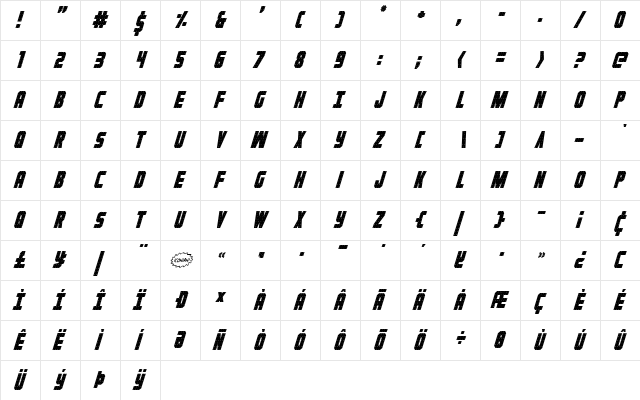
Design Context for Iron Forge Condensed Italic Typeface
Iron Forge Condensed Italic is a composed and adaptable typeface that performs quietly and consistently across a wide range of design contexts. The dynamic lean of this cut emphasises speed and emphasis in any layout. Its narrow stance lets it pack a punch even in space-constrained designs.
Pro Tip: Try Iron Forge Condensed Italic for annotation and caption copy alongside an upright companion — the contrast in angle creates a dynamic but ordered typographic system.